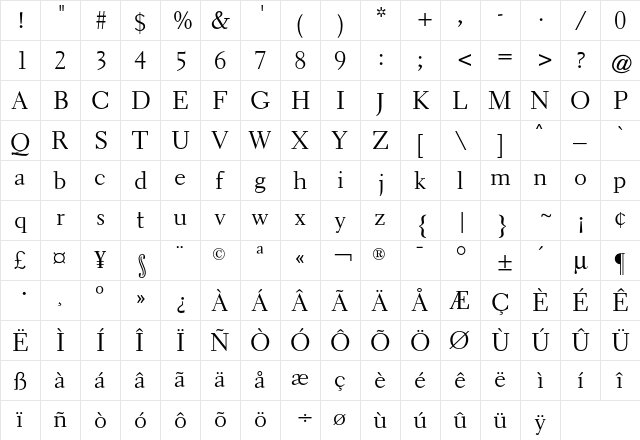
Elante CG Regular Font Preview
Elante CG Regular
Elante CG Regular Font Details
| Foundry | Miles Inc |
Design Context for Elante CG Typeface
Elante CG takes a measured approach to typography — its balanced proportions and neutral character make it a reliable workhorse for both digital and print work.